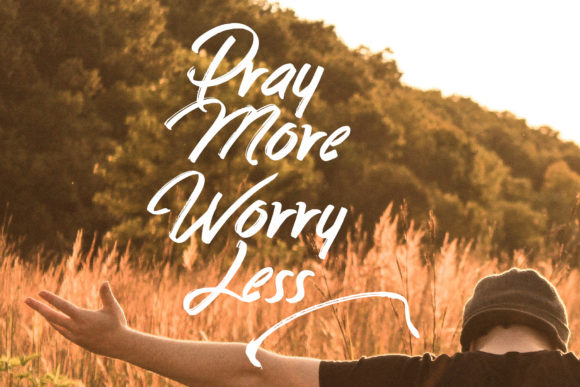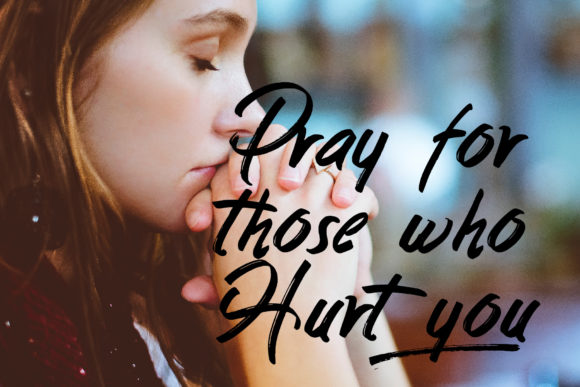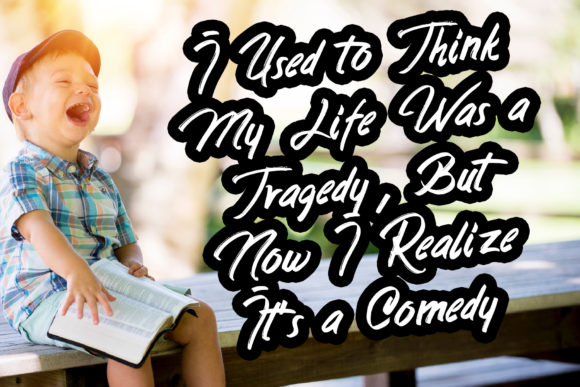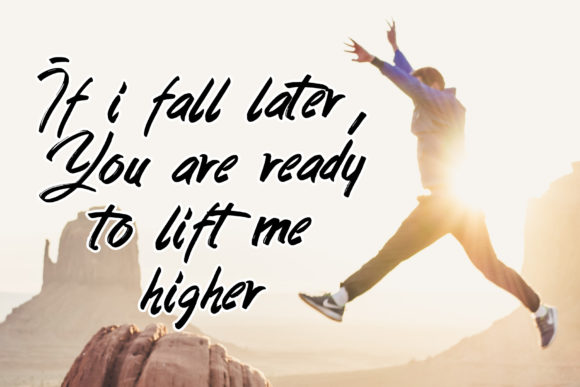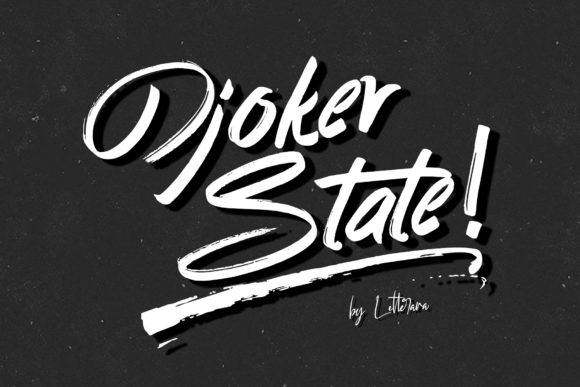
Introducing Djoker State Font: The Ultimate Typeface for Creative Projects
Are you a designer, craftsperson, or simply someone who appreciates the art of typography? Look no further than the Djoker State Font, a versatile and stylish typeface that’s perfect for a wide range of applications. From quotes and advertising to headings, logos, badges, posters, book covers, and newspapers, Djoker State is the ultimate font for anyone looking to add a touch of sophistication and creativity to their work.
What Makes Djoker State Font So Special?
Djoker State Font is a cool typeface that’s designed to make a statement. Its unique blend of modern and classic elements makes it perfect for designers who want to create something that’s both eye-catching and timeless. With its clean lines, precise curves, and balanced proportions, Djoker State is a font that’s both elegant and edgy.
Endless Possibilities with Djoker State Font
One of the best things about Djoker State Font is its incredible versatility. Whether you’re working on a logo, a poster, or a book cover, this font can be used in a variety of ways to create a stunning visual effect. Here are just a few examples of the many ways you can use Djoker State Font:
- Quotes: Use Djoker State Font to create inspiring quotes that will grab attention and leave a lasting impression.
- Advertising: Make your ads stand out with Djoker State Font, perfect for creating eye-catching headlines and taglines.
- Headings: Use Djoker State Font to create bold and stylish headings that will add a touch of sophistication to any document or design.
- Logos: Create a memorable logo with Djoker State Font, perfect for businesses, organizations, or personal brands.
- Badges: Design custom badges with Djoker State Font, great for events, conferences, or as a fun way to add a personal touch to your designs.
- Posters: Create stunning posters with Djoker State Font, perfect for promoting events, products, or services.
- Book Covers: Use Djoker State Font to create eye-catching book covers that will grab attention and make your book stand out.
- Newspapers: Add a touch of style to your newspaper designs with Djoker State Font, perfect for headlines, articles, and more.
Why Choose Djoker State Font?
So why choose Djoker State Font over other typefaces? Here are just a few reasons why designers and craftspersons love this font:
- Unique Style: Djoker State Font has a unique style that’s both modern and timeless, making it perfect for a wide range of design applications.
- High-Quality: This font is designed with precision and care, ensuring that it’s both legible and visually stunning.
- Versatile: Djoker State Font can be used in a variety of ways, from large headlines to small text, making it perfect for any design project.
In conclusion, Djoker State Font is a cool typeface that’s perfect for designers, craftspersons, and anyone who appreciates the art of typography. With its unique style, high-quality design, and versatility, this font is sure to become a go-to choice for anyone looking to add a touch of sophistication and creativity to their work. So why wait? Download Djoker State Font today and start creating stunning designs that will leave a lasting impression!